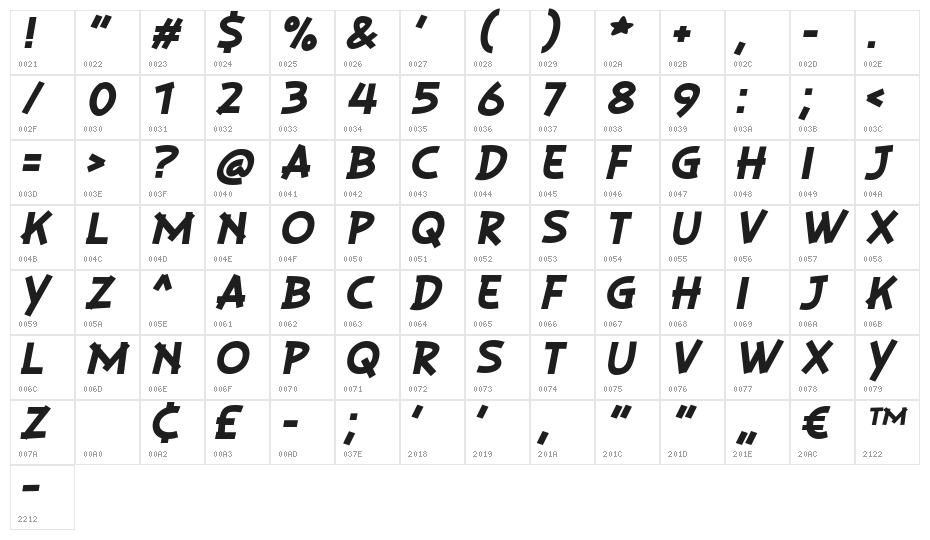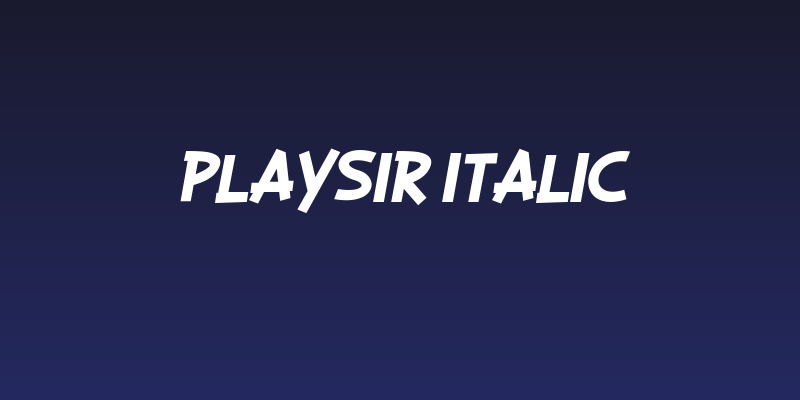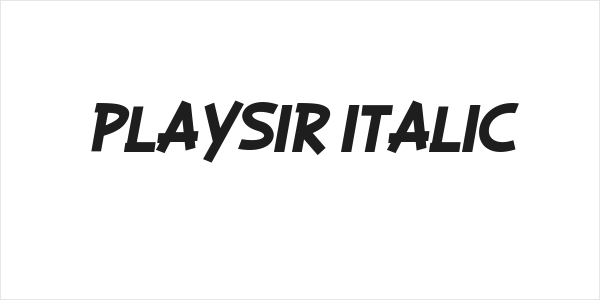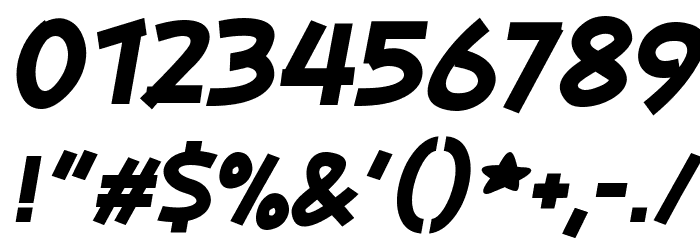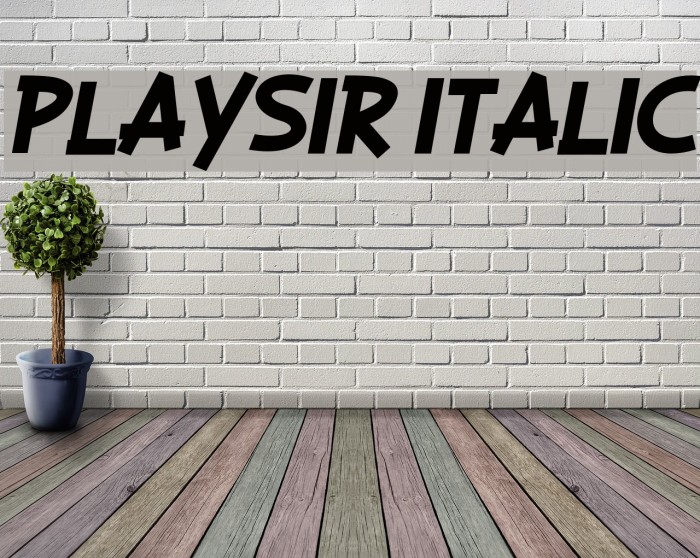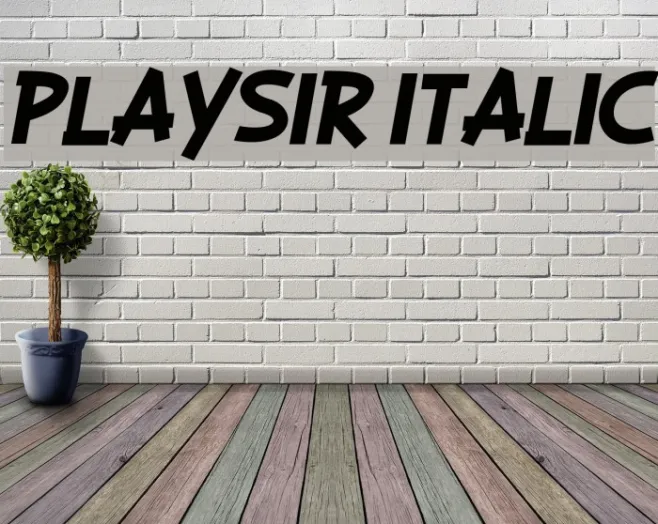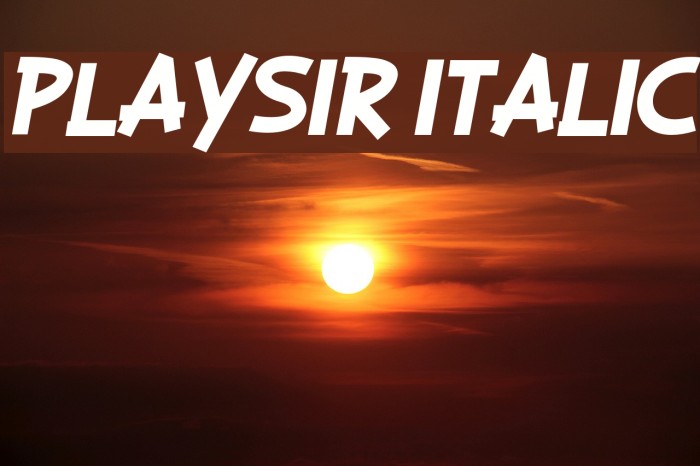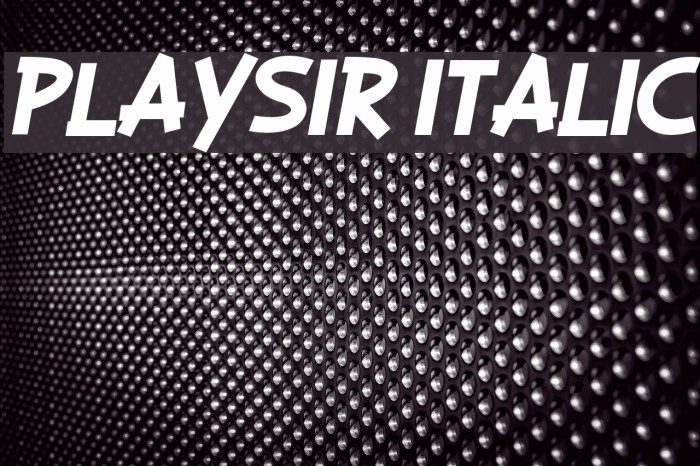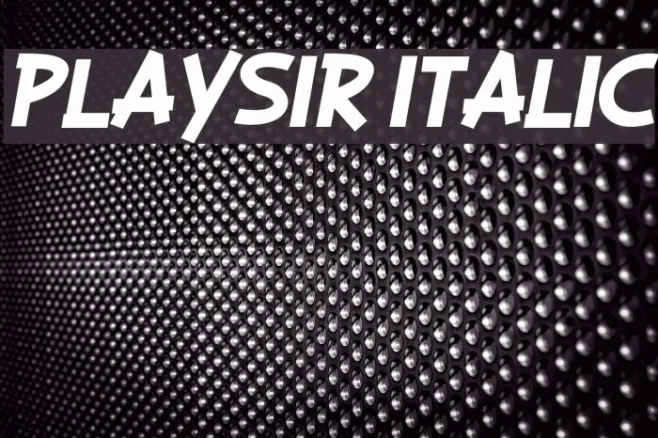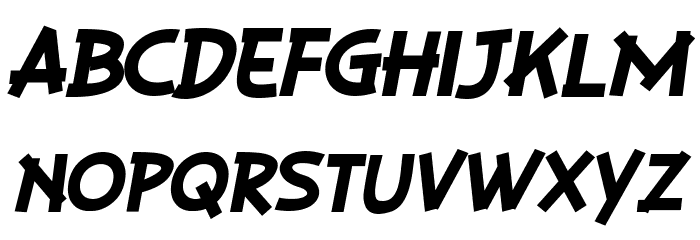
PLAYSIR Italic Font
PLAYSIR Italic Description
This font exhibits a dynamic and energetic style with a pronounced italic slant, giving it a sense of motion and urgency. The characters are bold and slightly condensed, with sharp angles and clean lines that enhance its modern appeal. The uppercase and lowercase letters maintain a consistent style, with the uppercase being slightly more angular. The numerals are robust and align well with the overall design, providing clarity and readability. Special characters are well-integrated, maintaining the font's cohesive look. This font's boldness and slant make it ideal for attention-grabbing headlines and impactful designs.